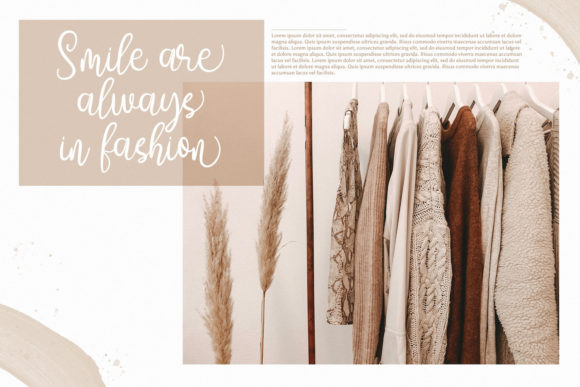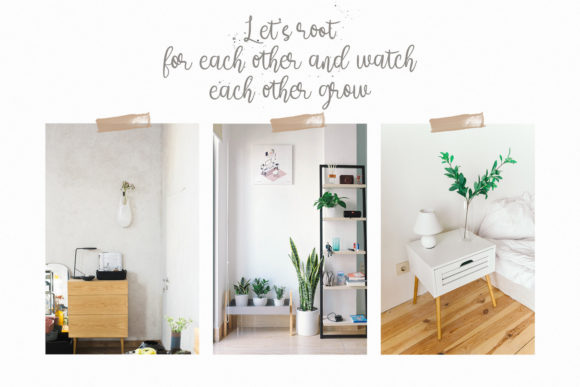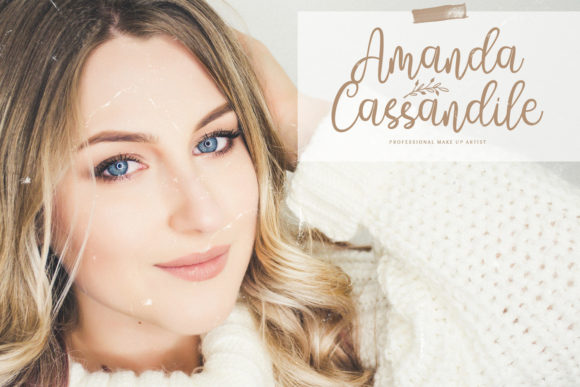
Introduction to Amelia Sani Font
Have you ever stared at a blank canvas, waiting for the perfect spark to ignite your creative project? That’s exactly what happened to many designers when they first laid eyes on the Amelia Sani Font. This elegant, flowing handwritten font has a way of bringing even the most mundane ideas to life, and we can’t get enough of it!
With its beautiful, well-balanced characters, the Amelia Sani Font is the ultimate design resource for any creative endeavor. Whether you’re working on a logo, a brochure, or a social media graphic, this font adds a touch of sophistication and whimsy that’s hard to resist. And the best part? It’s available for free download, making it an accessible high-quality resource for designers of all levels.
So why is the Amelia Sani Font so valuable to designers? For one, its transparent background makes it easy to layer and combine with other design elements. Plus, its delicate, elegant feel is perfect for creating a sense of subtlety and nuance in your designs. Whether you’re a seasoned pro or just starting out, this font is sure to be a game-changer for your next creative project.
Key Features of Amelia Sani Font
- High-quality design resource for creative projects, ideal for logos, branding, and typography.
- Transparent background, allowing for easy customization and versatility in design applications.
- Designed with precision and attention to detail, resulting in a clean and sophisticated aesthetic.
- Exclusive design, not found in standard font libraries, offering a unique touch to creative projects.
Honest Review: Amelia Sani Font
As a designer, I’m always on the lookout for high-quality fonts to elevate my creative projects. The Amelia Sani Font caught my eye, and I decided to give it a try. I was impressed by the clean and elegant design, perfect for projects that require a touch of sophistication.
Here’s what works well:
- ✨ The Amelia Sani Font is incredibly versatile and works well for a wide range of creative projects, from branding to typography.
- ✨ The transparent background allows for seamless integration with other design elements.
- ⚠️ The Amelia Sani Font may not be suitable for projects that require a bold, statement font.
- ⚠️ The font may not be as customizable as some other options, limiting its flexibility.
Overall, I’m impressed with the Amelia Sani Font. Its clean design, versatility, and free download make it a valuable addition to any designer’s toolkit. While it may not be perfect for every project, it’s definitely worth considering for your next creative endeavor.
Amelia Sani Font
For the best results, use the Amelia Sani Font with a transparent background to create a clean and modern look. Experiment with different font sizes and colors to find the perfect combination for your design.
The Amelia Sani Font is ideal for use in logos, branding materials, and digital signage. Its high-quality design and versatility make it a great choice for a wide range of creative projects.